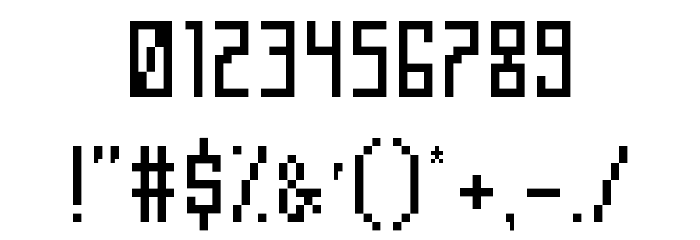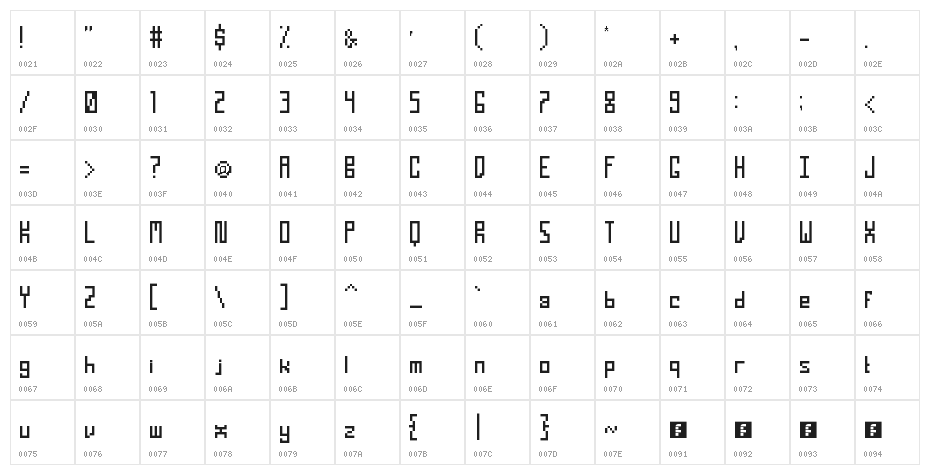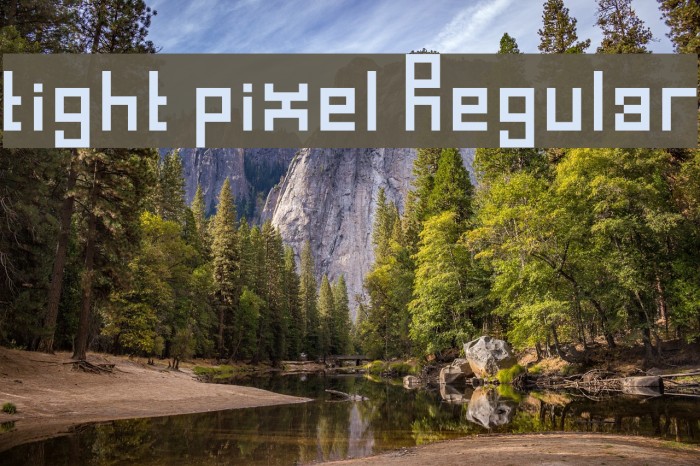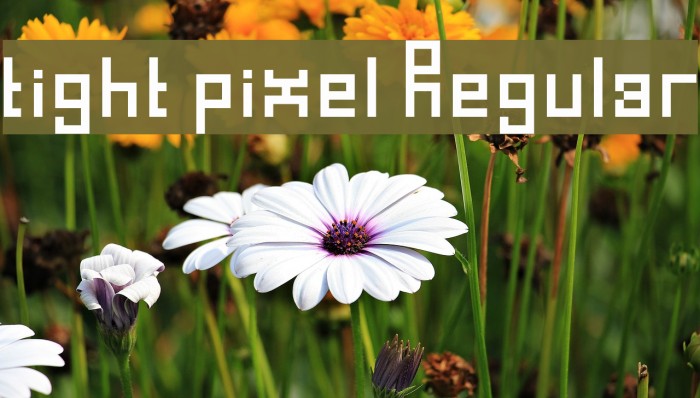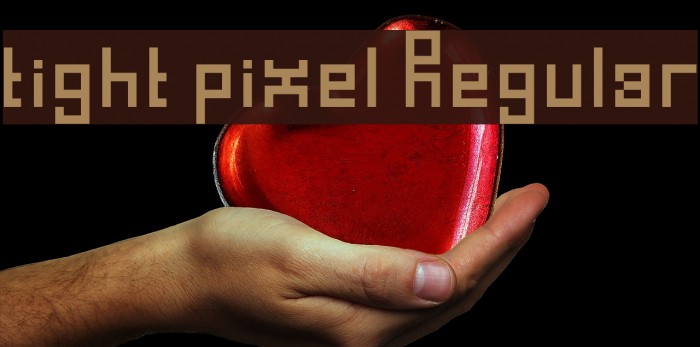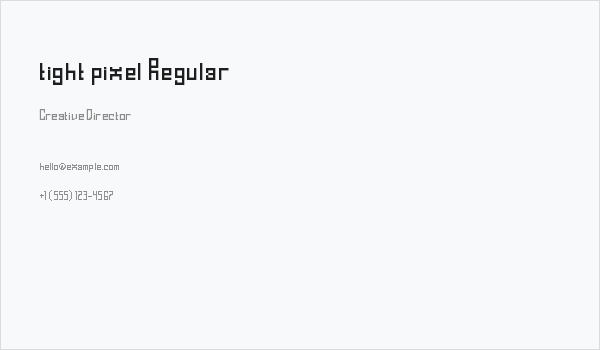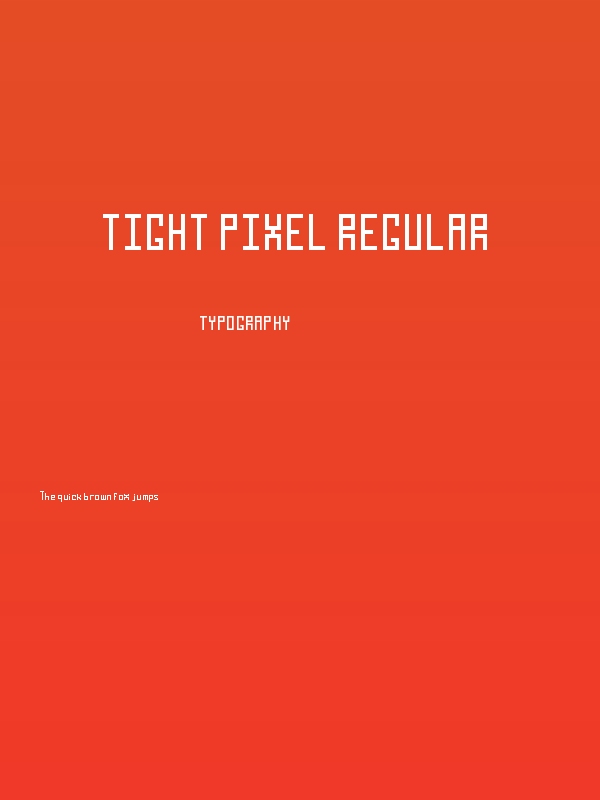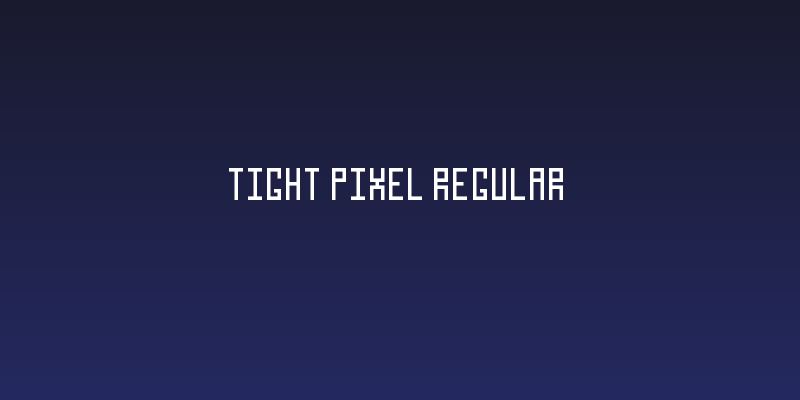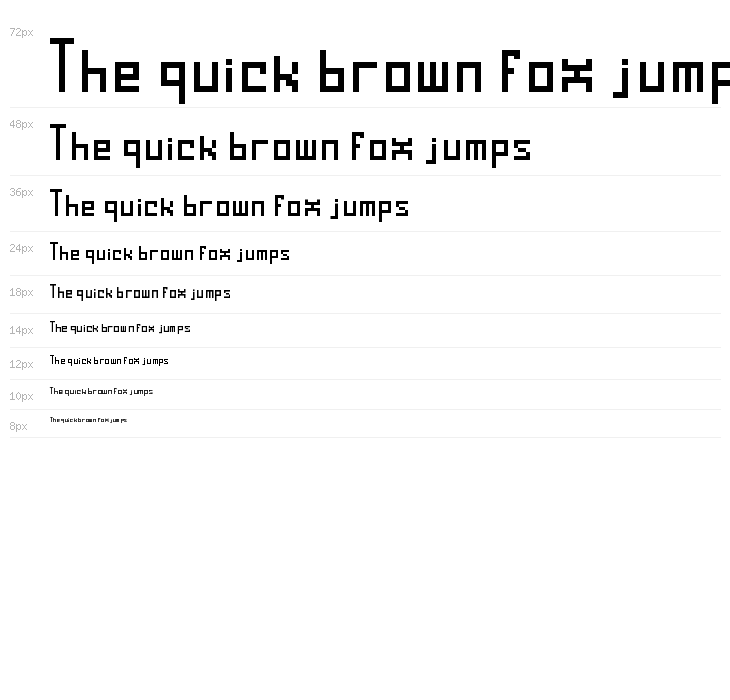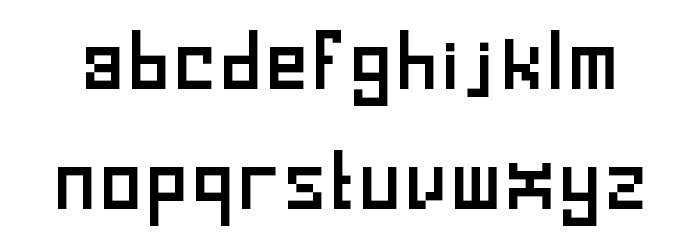
tight pixel Regular Font
tight pixel Regular Description
This font features a pixelated, blocky design reminiscent of early digital displays and retro video games. Each character is constructed with a grid-like precision, emphasizing a uniform, geometric aesthetic. The uppercase and lowercase letters maintain a consistent height, creating a cohesive and structured appearance. Numbers and special characters follow the same pixelated style, ensuring visual harmony across all elements. The font's simplicity and clarity make it highly legible, even at smaller sizes, while its nostalgic charm adds a playful, vintage touch to any project.
| Use Case | Logos, Headlines, Digital displays |
| Proposed Projects | Ideal for retro video game graphics, digital art, tech-themed posters, and nostalgic branding projects. |